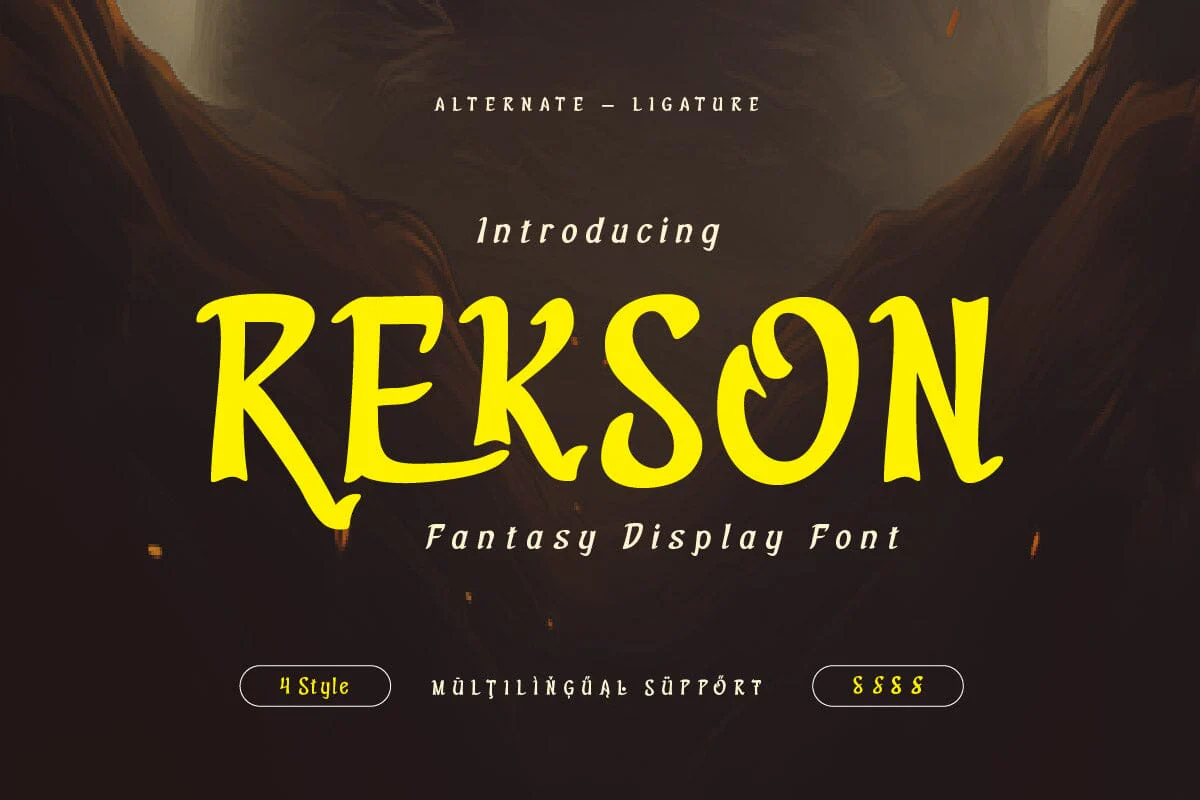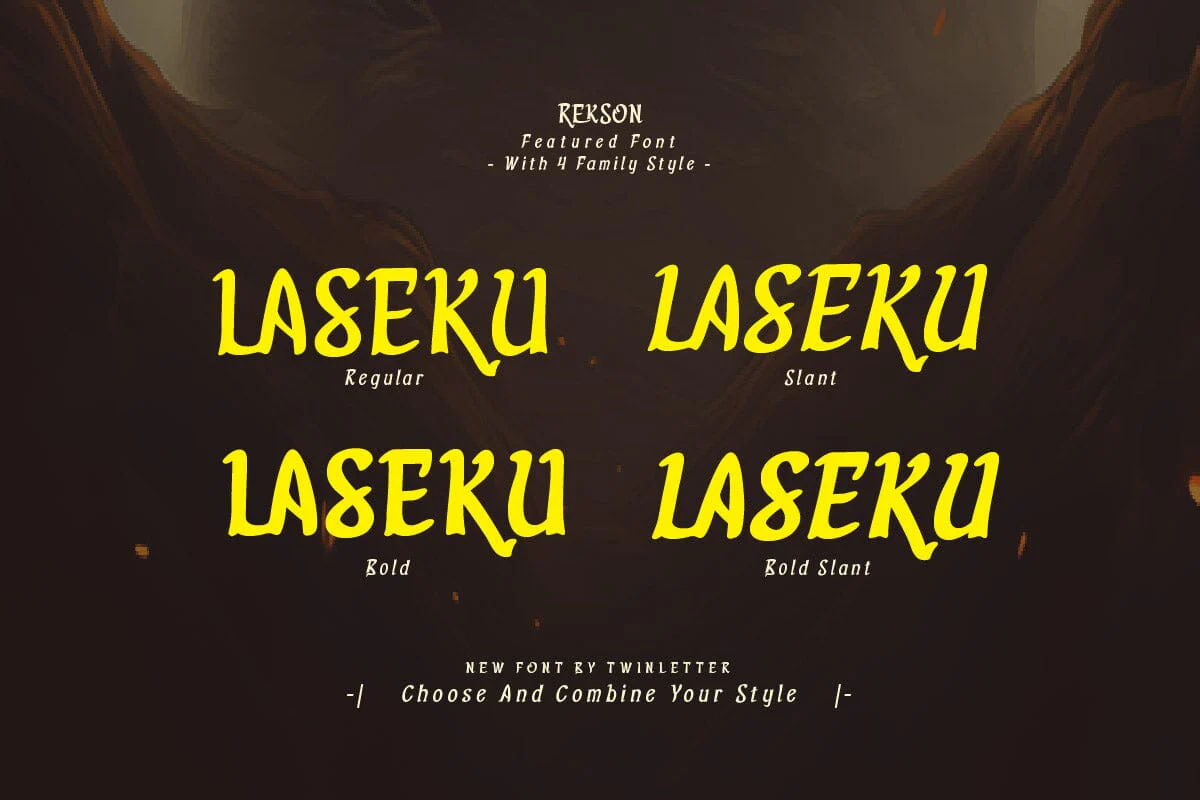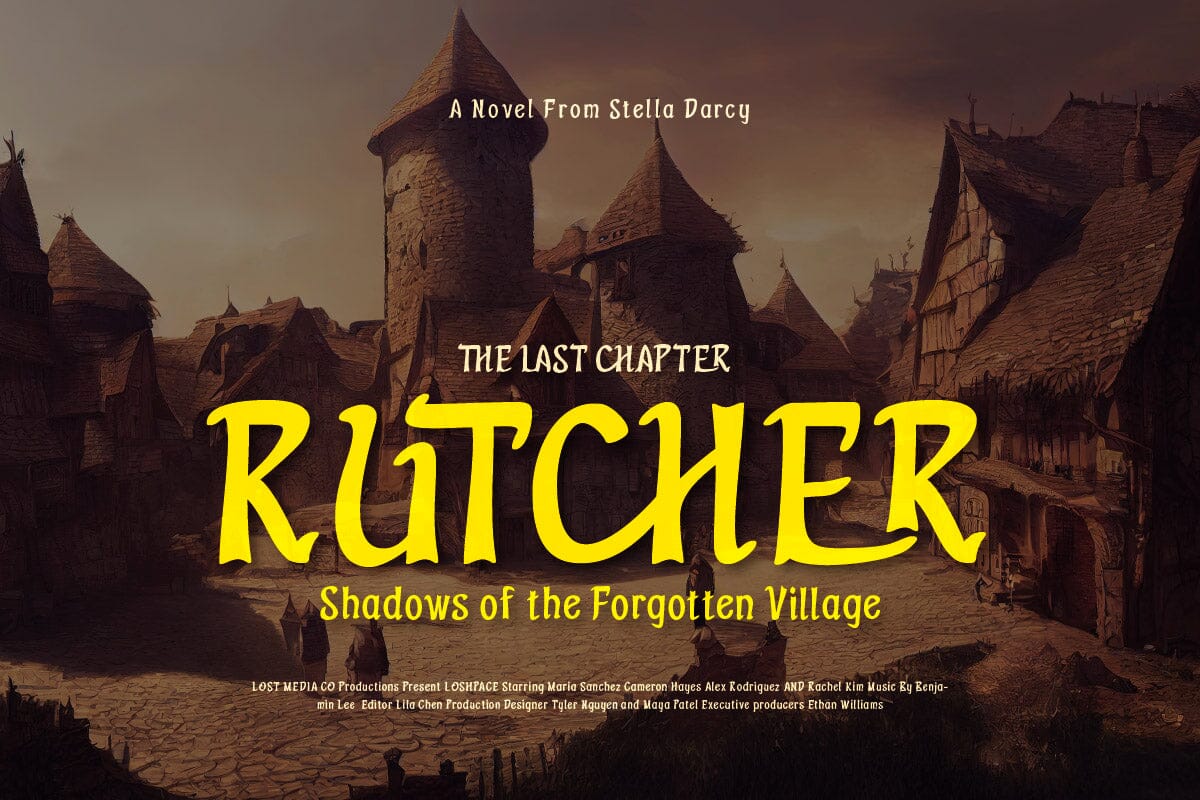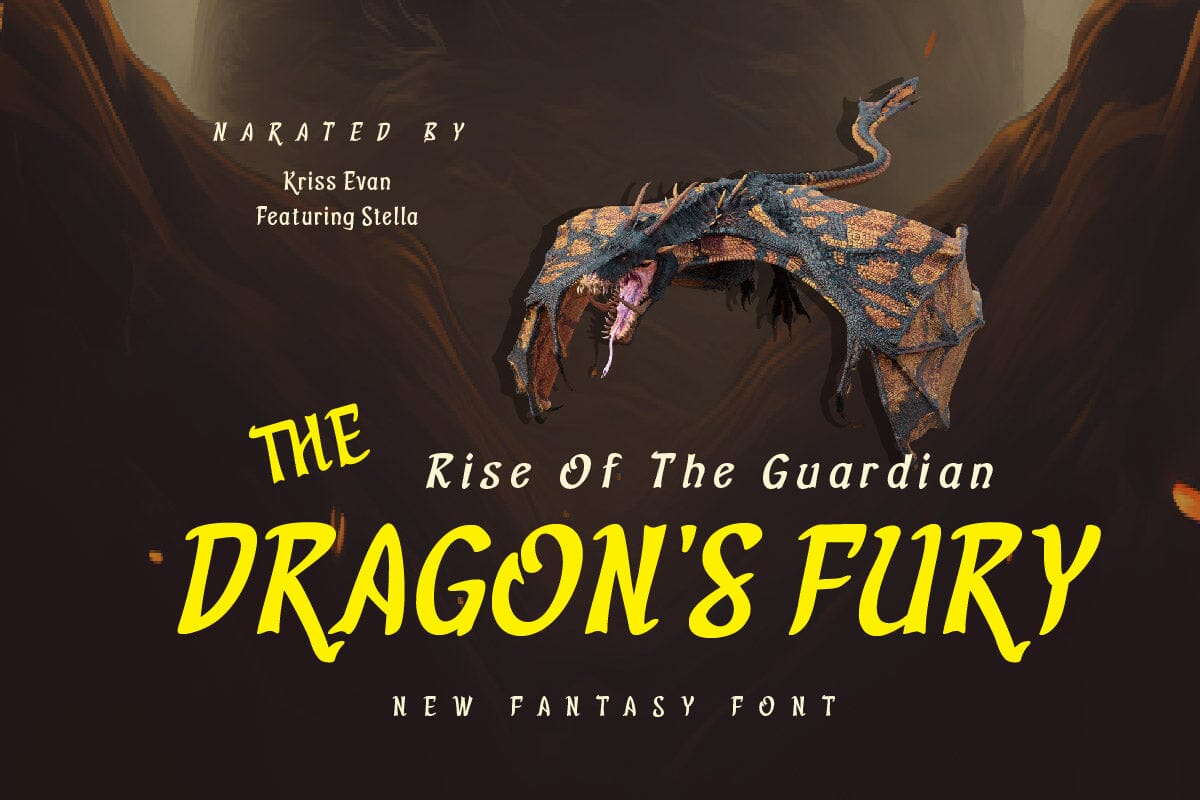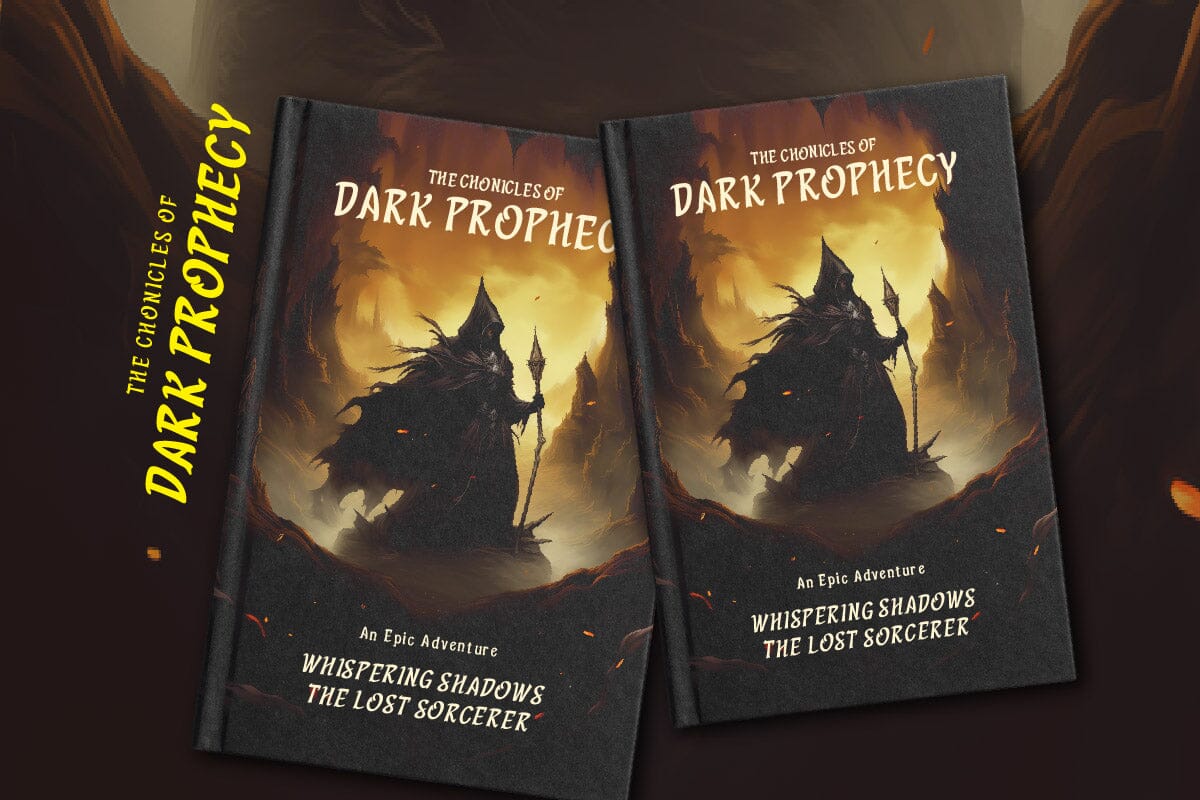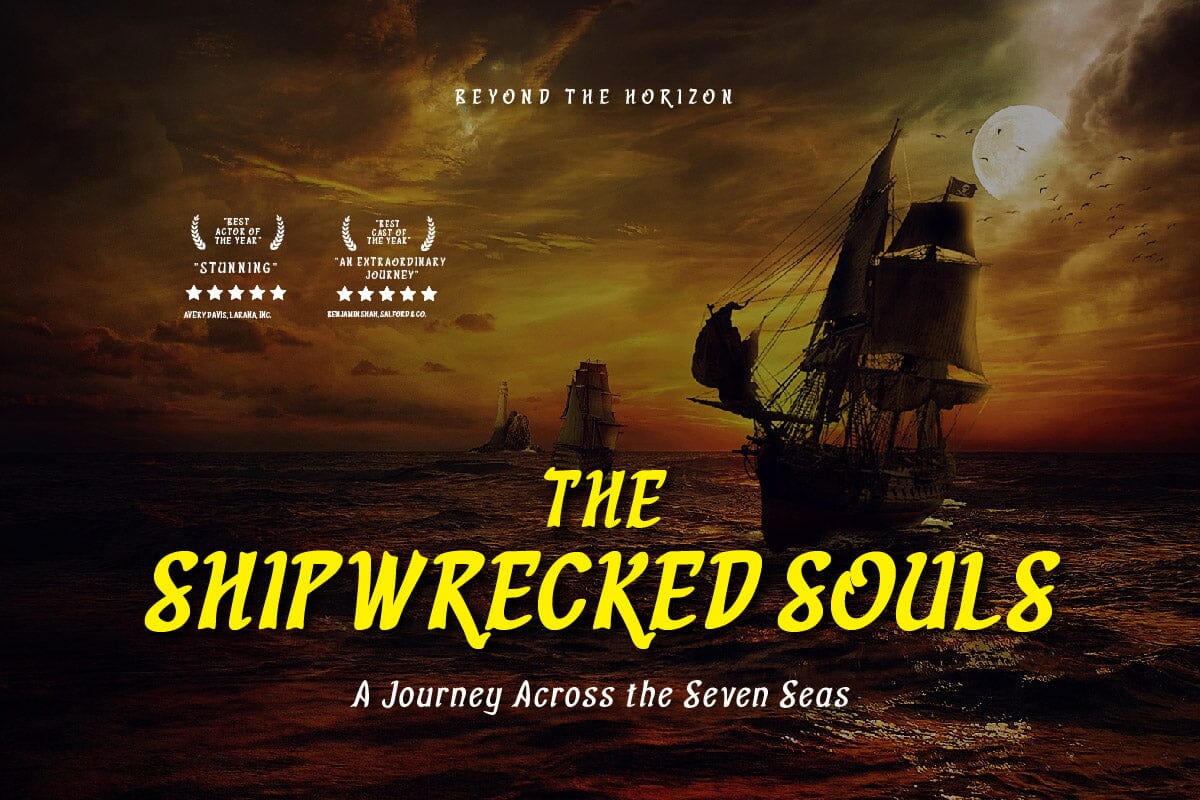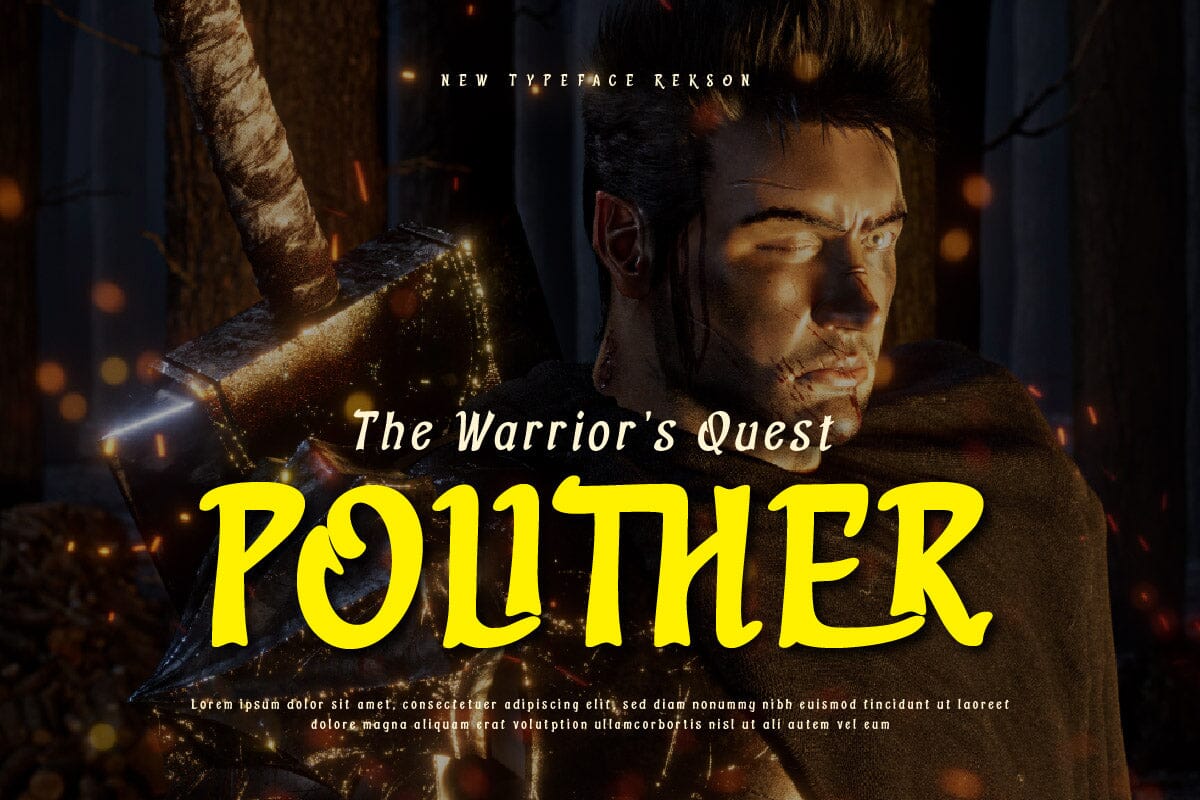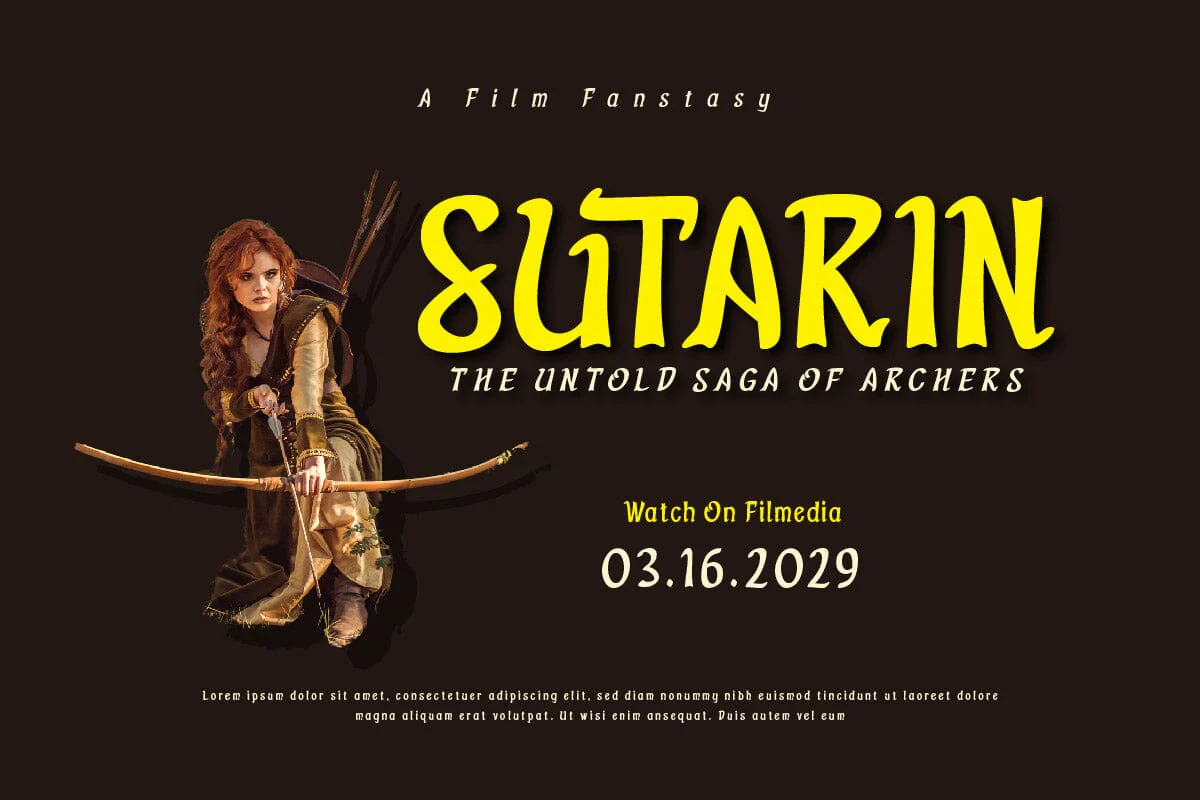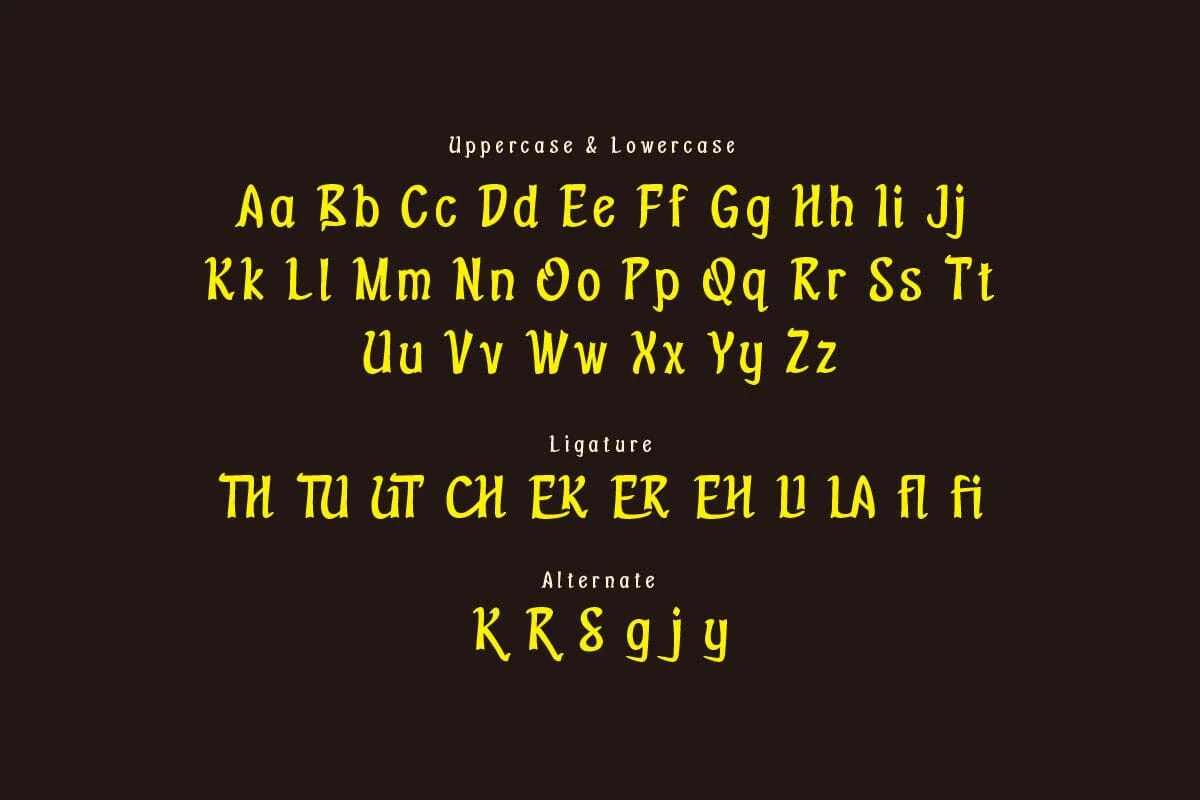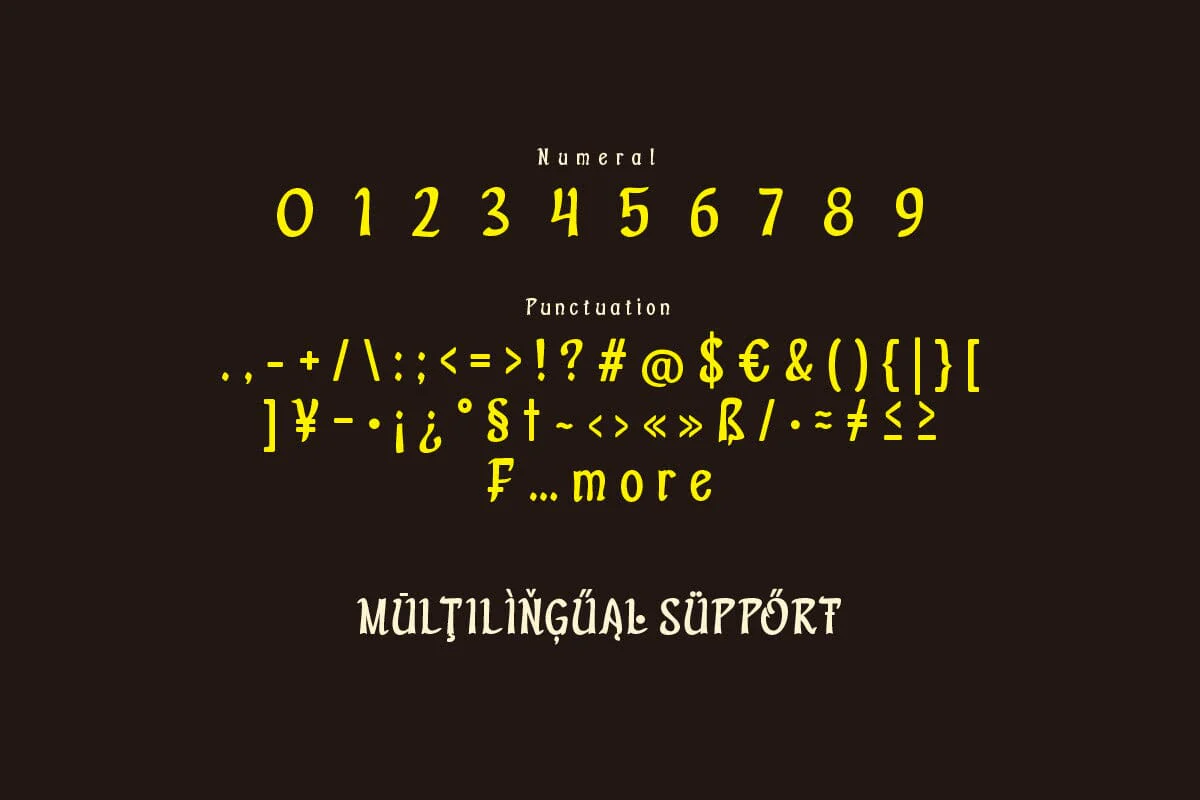
Rekson - Movie Display Font
Lights, camera, action! Introducing Rekson, the Movie Display Font that brings the drama and excitement of the silver screen to your design projects. Inspired by classic movie title sequences, Rekson features bold, cinematic letterforms that demand attention and evoke a sense of anticipation. Whether you're creating movie posters, film titles, or promotional materials for your cinematic masterpiece, Rekson adds a touch of Hollywood glamour and sophistication. Its versatility allows it to shine in both digital and print formats, ensuring that your designs captivate audiences on any platform. With Rekson, every project becomes a blockbuster hit, leaving a lasting impression on viewers long after the credits roll.